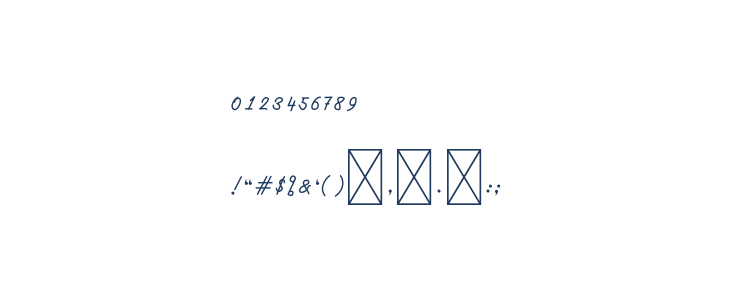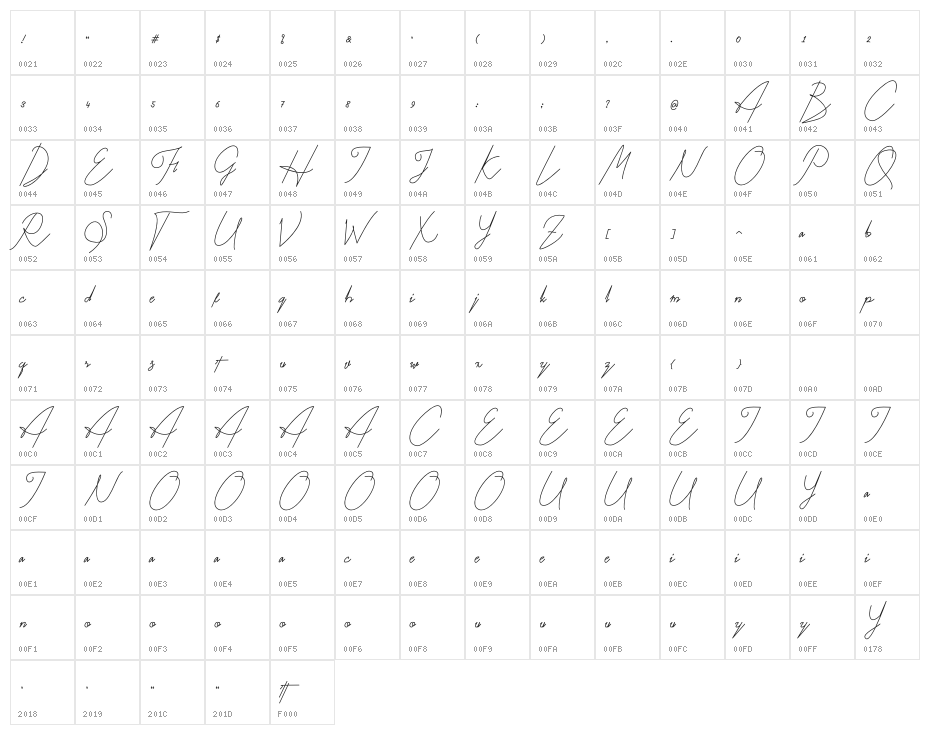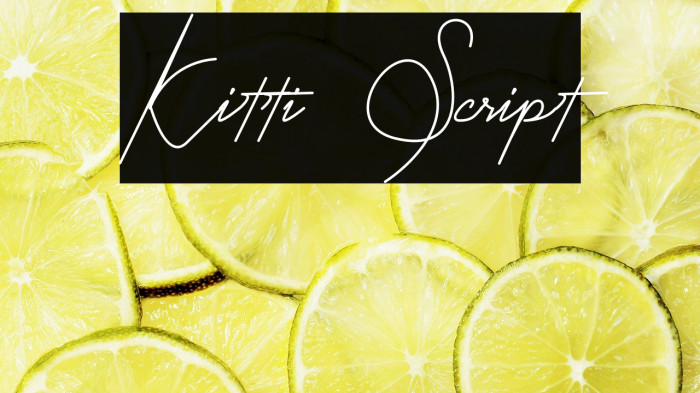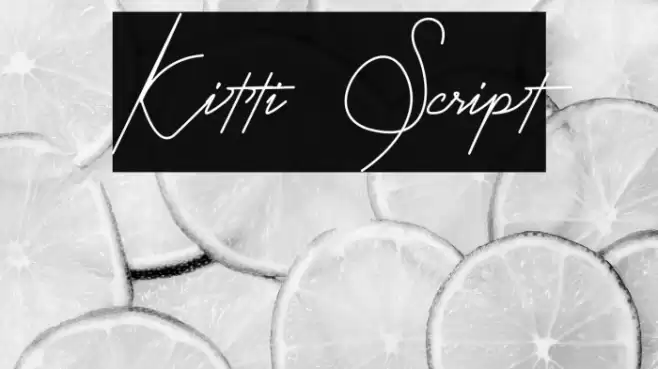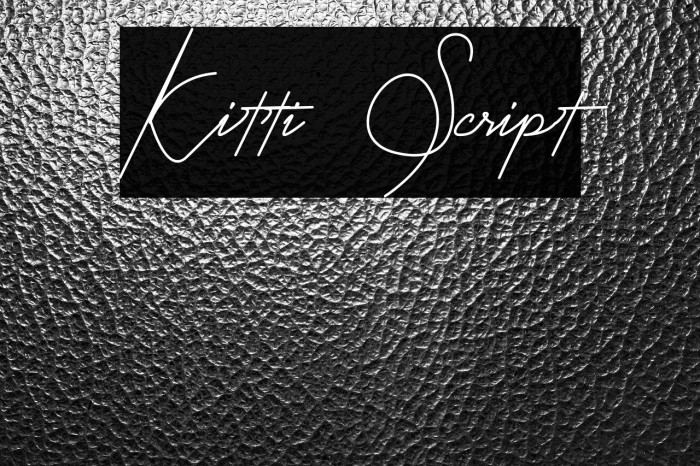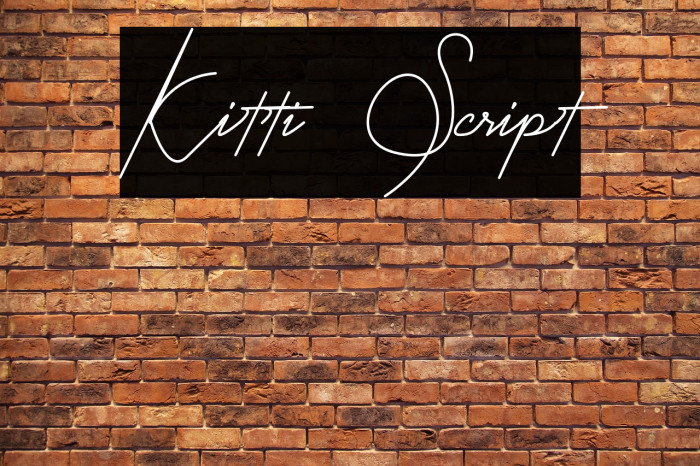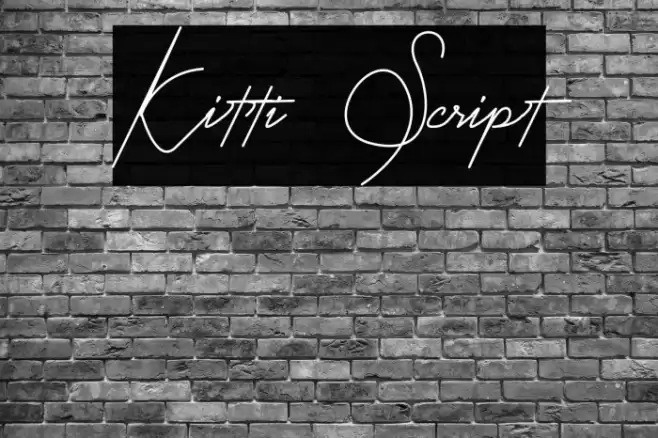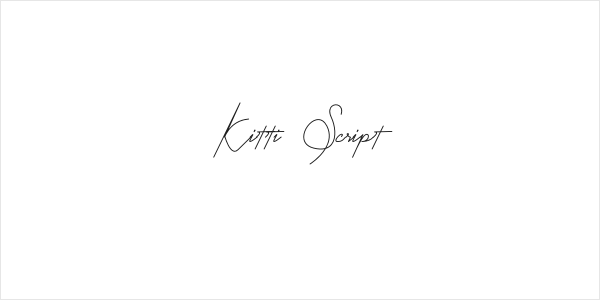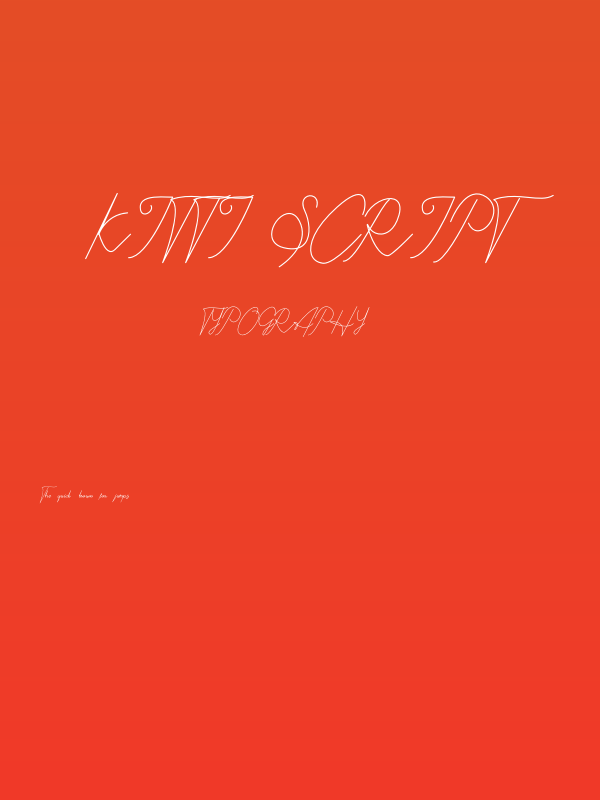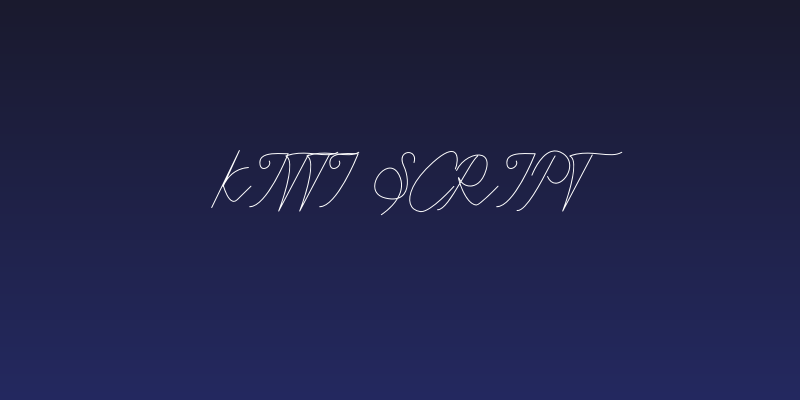
Kitti Script Font
Kitti Script Description
This font exudes a playful yet elegant script style, characterized by its fluid, cursive strokes and a sense of movement. The uppercase letters are tall and slender, with a slight slant that adds a dynamic feel. The lowercase letters maintain a consistent flow, connecting smoothly, which enhances readability while retaining a handwritten charm. The numerals are distinct, maintaining the same cursive style, which ensures consistency across all characters. Special characters are integrated seamlessly, complementing the overall aesthetic. This font's delicate lines and graceful curves make it suitable for projects that require a personal touch.